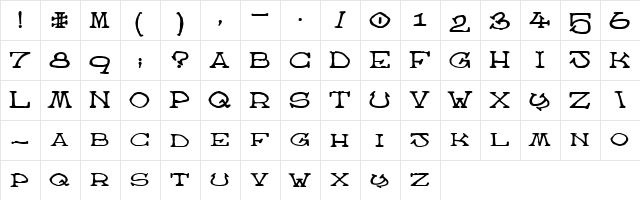
Atlas of the Magi Regular
| Designer | S. John Ross |
Design Context for Atlas of the Magi Typeface
Atlas of the Magi is a composed and adaptable typeface that performs quietly and consistently across a wide range of design contexts.